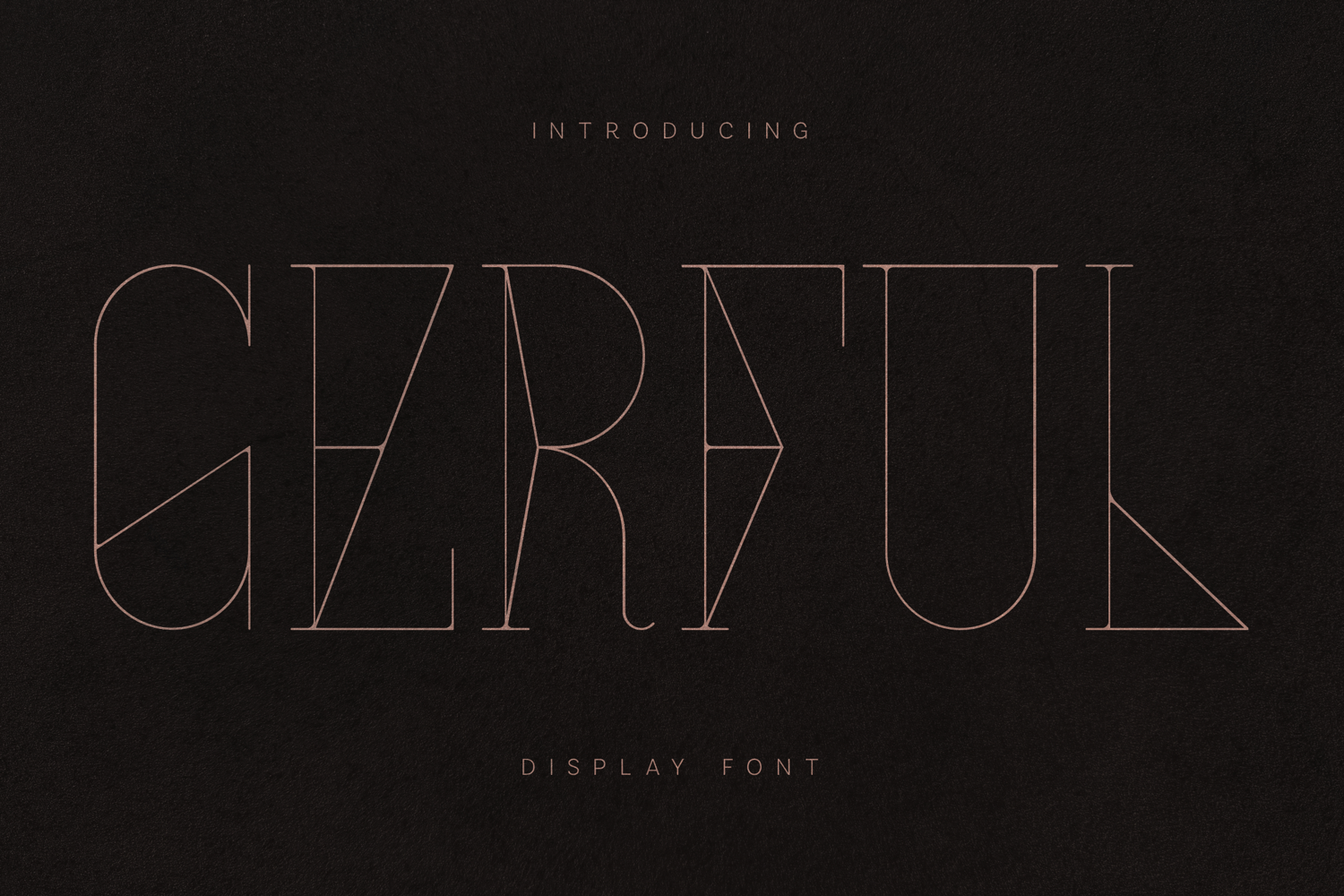
Gerful Elegant Art Deco Display Font
Gerful is a refined Art Deco inspired display typeface built with geometric precision and elegant vertical rhythm.
The font features thin monoline strokes combined with architectural shapes and sharp triangular cuts that echo classic 1920s–1930s typography. Its tall proportions and refined structure create a sophisticated and cinematic atmosphere, making it perfect for luxury and editorial design.
Gerful balances minimalism with decorative details. Subtle geometric constructions inside letters add visual interest while maintaining excellent readability for headlines and large typography.
The result is a timeless display font that feels both vintage and modern.
Perfect For• Luxury branding
• Fashion editorials
• Film posters
• Art deco design
• Magazine headlines
• Elegant packaging
• Logo design
• Posters
• Art Deco geometric design
• Elegant display style